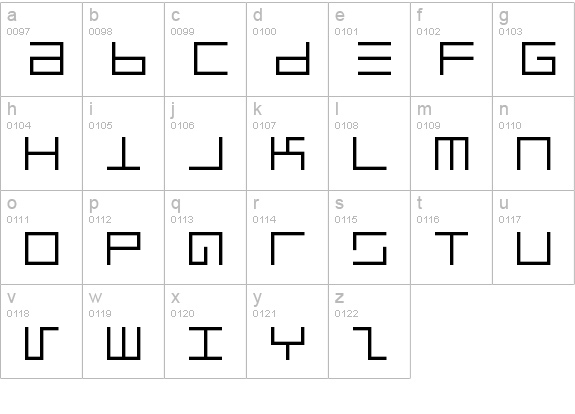
Epps Evans Light is a refined, elegant variant in the Epps typeface family \xE2\x80\x94 well suited to elegant body text, refined sub-headings, and luxury branding.